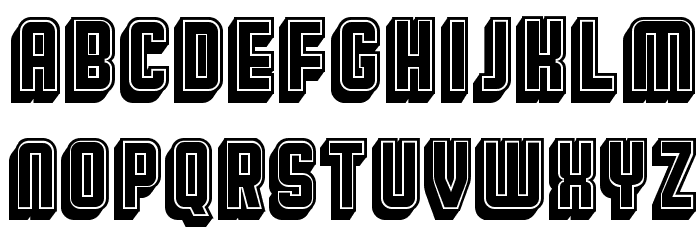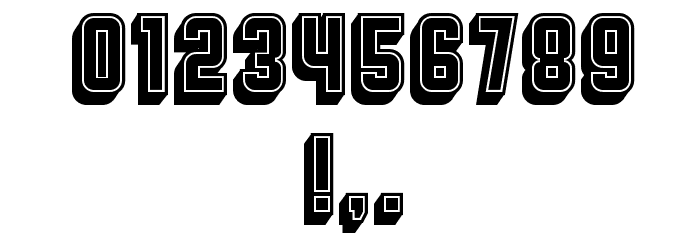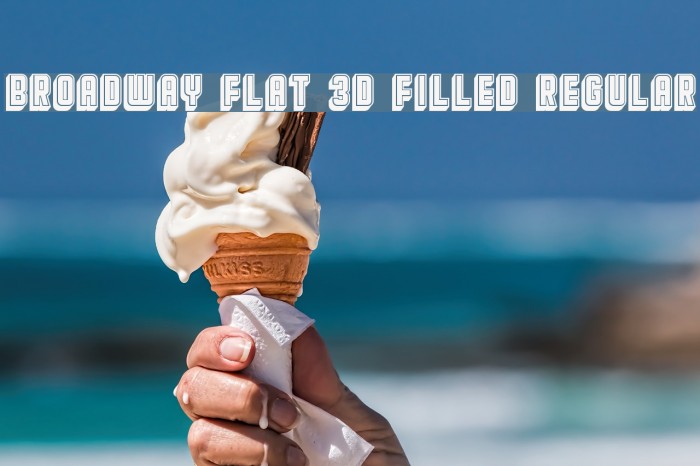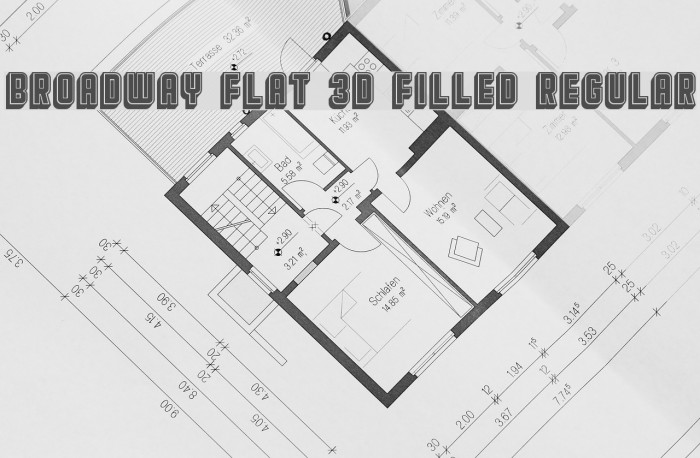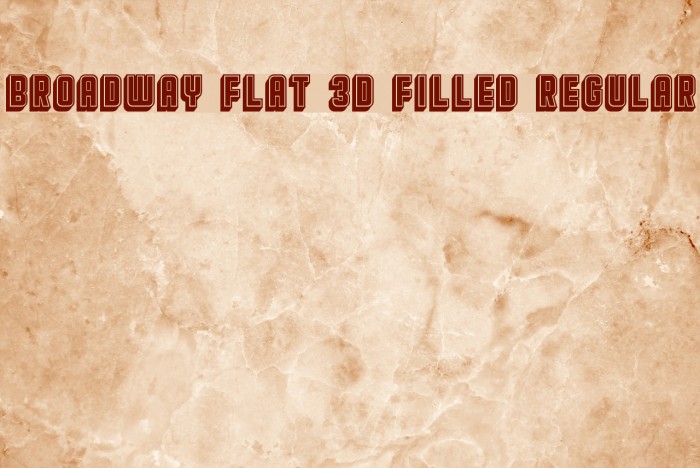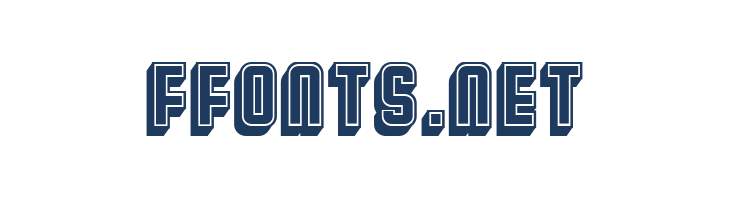
Broadway Flat 3D Filled Regular Font
This font features a bold, three-dimensional appearance with a filled interior and a flat, blocky style. The characters are uppercase, with a strong geometric structure that gives them a solid and impactful look. The 3D effect is achieved through a shadow-like outline that adds depth and dimension. The font is highly decorative, making it ideal for eye-catching designs. The numerals and special characters maintain the same bold and dimensional style, ensuring consistency across all elements.
A bold, 3D decorative font with a flat, filled style.
- Proposed Projects: Ideal for posters, signage, headlines, and any design requiring a strong visual impact.